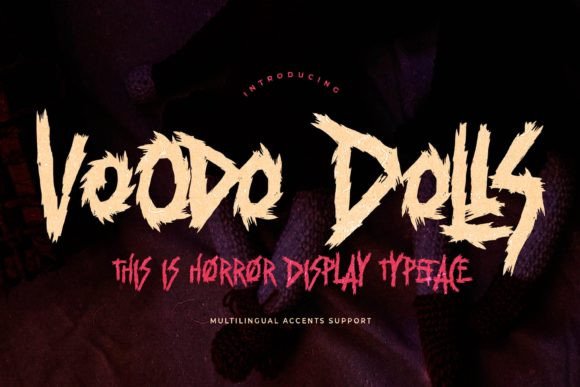
Unleash the Bewitching Allure of Voodo Dolls Font: A Typographic Masterpiece for Hauntingly Creative Expressions
In the realm of captivating display fonts, Voodo Dolls emerges as a mesmerizing creation, drawing inspiration from the captivating allure of the horror genre. Crafted by the visionary designers of Gassstype Studio, this font is not merely a collection of letters; it's an evocative journey into a world of dark enchantment, where words morph into haunting narratives and designs take on a life of their own.
Embrace the Enigmatic Charm of Voodo Dolls: A Font That Speaks Volumes
With its captivating curves and intricate details, Voodo Dolls Font holds the power to transform ordinary designs into extraordinary spectacles. Its meticulously crafted characters exude an air of mystery and intrigue, inviting viewers to delve deeper into the captivating stories they tell. Whether gracing logos, adorning printed quotes, or adding a touch of mystique to invitations and cards, Voodo Dolls Font weaves a spellbinding charm that leaves a lasting impression.
Discover Endless Creative Possibilities with Voodo Dolls: A Font That Knows No Bounds
Unleash your imagination and explore the boundless creative possibilities that await with Voodo Dolls Font. Its versatility extends far beyond traditional applications, making it an indispensable tool for a myriad of artistic endeavors. Let your creativity run wild as you incorporate Voodo Dolls into product packaging, headers, letterheads, and posters, imbuing each project with a haunting elegance. The possibilities are endless, and the only limit is your imagination.
Immerse Yourself in the Darkly Enchanting World of Voodo Dolls: A Font That Mesmerizes
Step into the captivating world of Voodo Dolls Font, where darkness and beauty intertwine in perfect harmony. This font is not just a design element; it's a gateway to a realm of captivating storytelling and artistic exploration. Experience the thrill of conjuring haunting visuals that evoke strong emotions and leave an indelible mark on your audience. With Voodo Dolls Font as your creative ally, you hold the power to weave captivating tales that linger long after the final word is read.